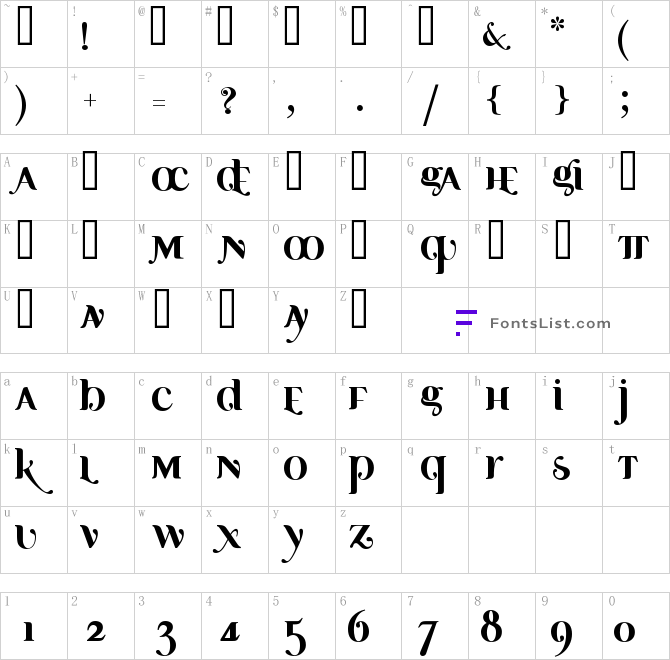
- Font Name:Ayosmonika
Ayosmonika-Bold-copy-3-.ttf is a very beautiful artistic font, Ayosmonika-Bold-copy-3-.ttf is widely used in the design and printing of various books and pictures,Ayosmonika-Bold-copy-3-.ttf has a strong visual impact,Ayosmonika-Bold-copy-3-.ttf is a commonly used font in newspapers, magazines and books, and is used in posters, e-commerce Poster design, store design, logo design, font design and other fields.Ayosmonika-Bold-copy-3-.